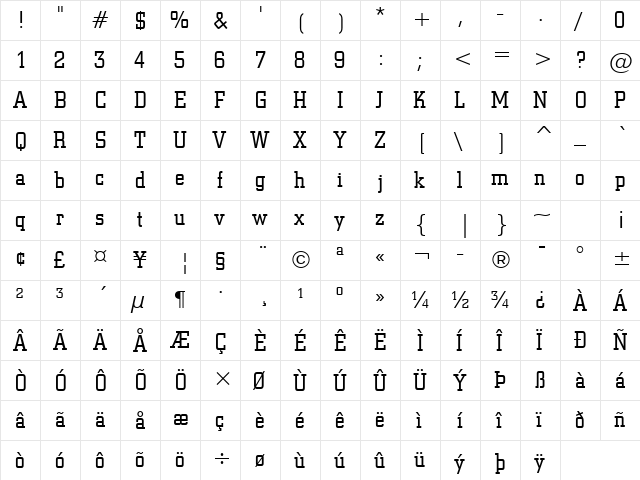
SquareSlab711 Lt BT Light
Design Context for SquareSlab711 Lt BT Typeface
SquareSlab711 Lt BT combines the readability of serif typography with the visual weight of a slab construction, resulting in a typeface that feels both authoritative and approachable. The delicate stroke weight brings airiness and refinement to layouts.
Works well in editorial design, news publishing, impactful branding, and poster typography.
Pro Tip: Try SquareSlab711 Lt BT set tight in headlines for a classic editorial feel. Its slab serifs create strong horizontal rhythm that anchors a page layout.